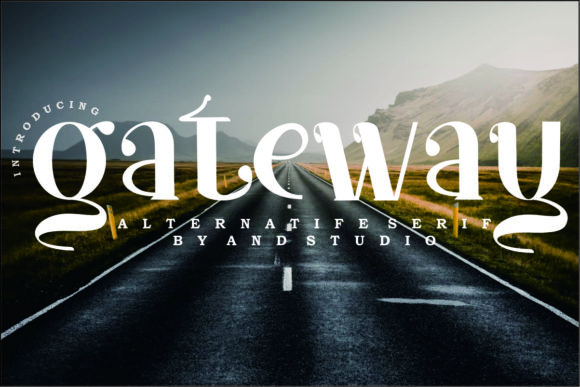
Prepare to be captivated by Gateway, the font that empowers you to unlock the secrets of stunning typography! This exquisite serif typeface is an embodiment of elegance and style, infused with a captivating minimalist and modern touch. It's the font that will make your designs shine with sophistication and flair!
Indulge in the boundless possibilities of Gateway's versatility. Its graceful curves and sharp edges lend themselves flawlessly to a wide array of creative endeavors. Whether you're crafting eye-catching logos, captivating headlines, or unforgettable corporate identities, Gateway will elevate your designs to new heights of sophistication.
Step into the realm of limitless creativity and let Gateway guide your design journey. Its timeless appeal will breathe life into your posters, magazines, and books, while its modern edge will keep your digital creations on the cutting edge. Embrace the power of Gateway and watch your ideas transform into mesmerizing visual masterpieces.
Gateway is not just a font; it's a gateway to a world of creative freedom. Dive into the depths of your imagination and explore the boundless possibilities that await you with this remarkable typeface. Gateway is more than just a font; it's the key to unlocking the best fonts for event websites and beyond.
Experience the Gateway to greatness and let your creativity soar!